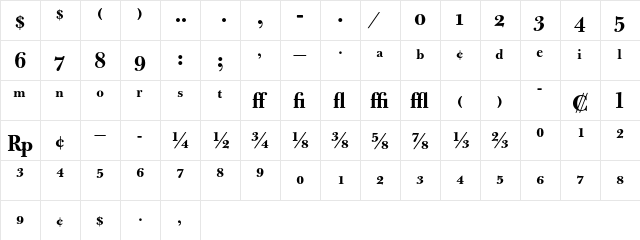
Bulmer MT Bold Expert Font Preview
Bulmer MT Bold Expert
Design Context for Bulmer MT Typeface
Bulmer MT is a composed and adaptable typeface that performs quietly and consistently across a wide range of design contexts. The heavy weight commands attention and anchors typographic hierarchies.